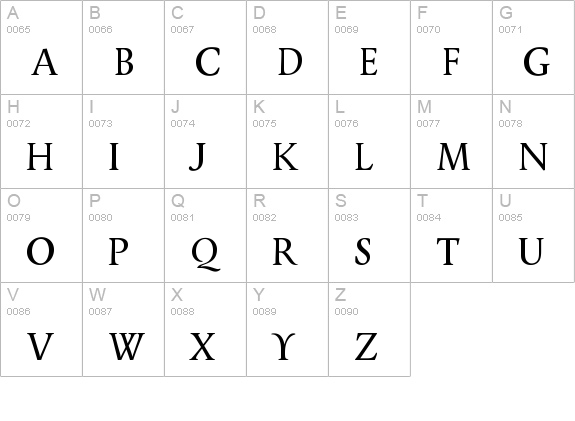
PantherEF-Regular Font Details
PantherEF-Regular is the standard, neutral variant in the PantherEF typeface family \xE2\x80\x94 well suited to general body text, paragraphs, and standard typographic work.
PantherEF-Regular font is a sleek and modern typeface that exudes elegance and sophistication. Its clean lines and sharp edges make it perfect for a variety of design projects, from logos and branding to headlines and posters. The font's versatility allows it to be used in both digital and print media, ensuring a consistent and professional look across all platforms. What sets PantherEF-Regular font apart is not only its stunning aesthetics but also the fact that it is available for free. You heard it right, this incredible font can be downloaded at no cost from FontsMarket.com. This means that designers, creatives, and enthusiasts alike can enjoy the beauty and functionality of PantherEF-Regular font without any financial constraints. Whether you are a professional designer looking to add a touch of sophistication to your projects or an amateur designer experimenting with typography, PantherEF-Regular font is the perfect choice. Its timeless appeal, combined with its availability as a free download, makes it an invaluable asset in any design arsenal. Say goodbye to expensive font licenses and limited options. With PantherEF-Regular font, you can unleash your creativity without breaking the bank. So why wait? Head over to FontsMarket.com and start experiencing the beauty and versatility of PantherEF-Regular font today.